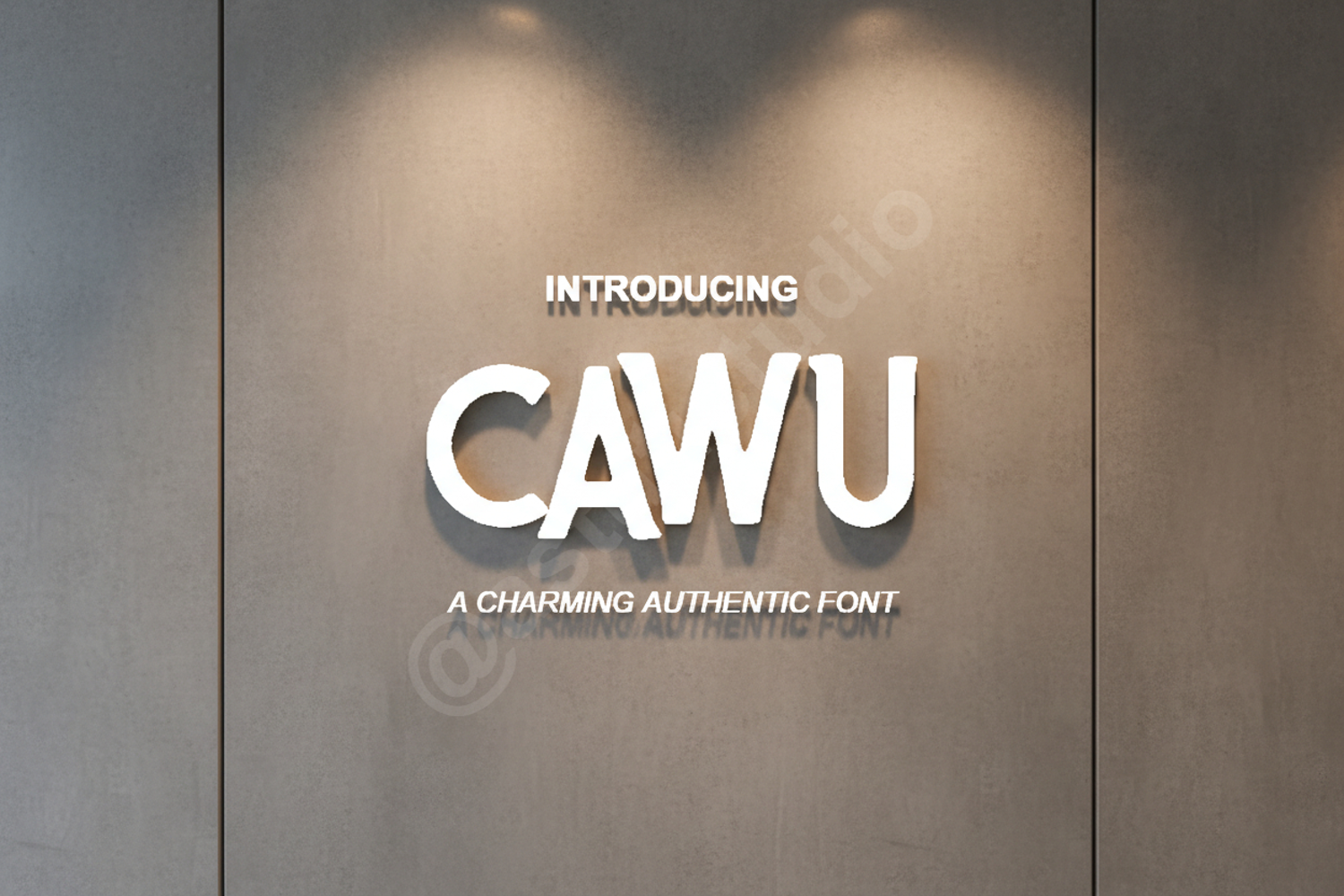
Cawu - Sophisticated Modern Serif Typeface
Cawu
Cawu is a premium serif typeface designed for those who value elegance and clarity. With its balanced proportions and refined curves, this font brings a touch of luxury to any professional project. Whether you are working on a high-end brand identity or a minimalist editorial layout, Cawu provides the perfect typographic foundation to elevate your creative vision.
- Comprehensive set of uppercase and lowercase letters
- Numerals, punctuation, and standard symbols
- Extensive multilingual support for global accessibility